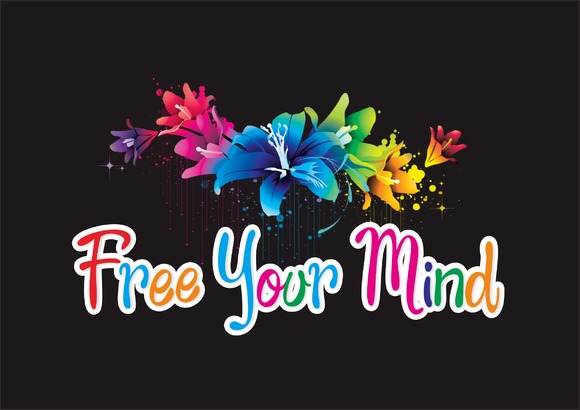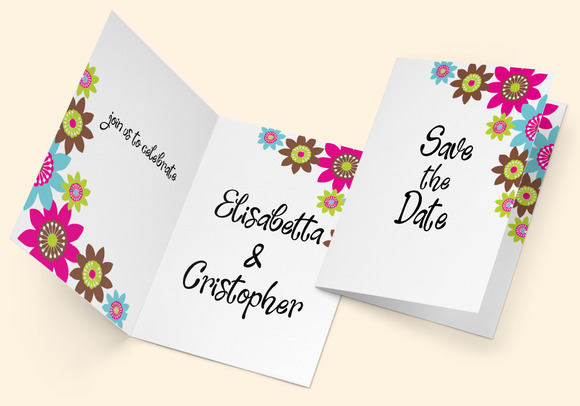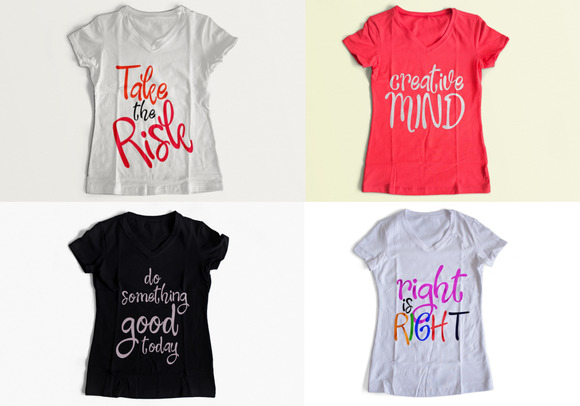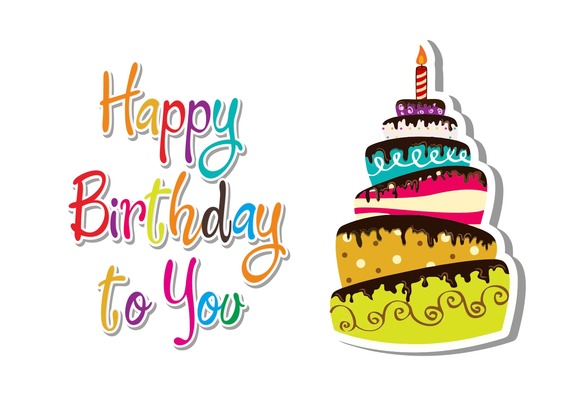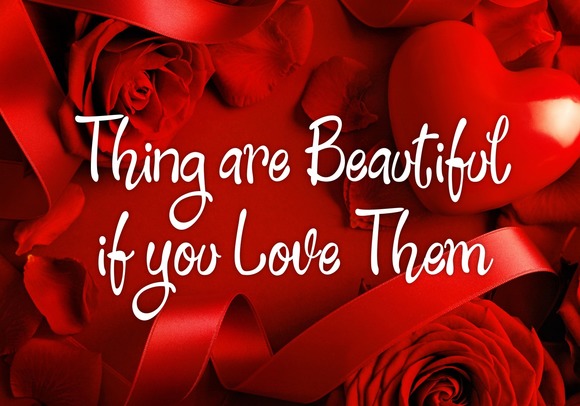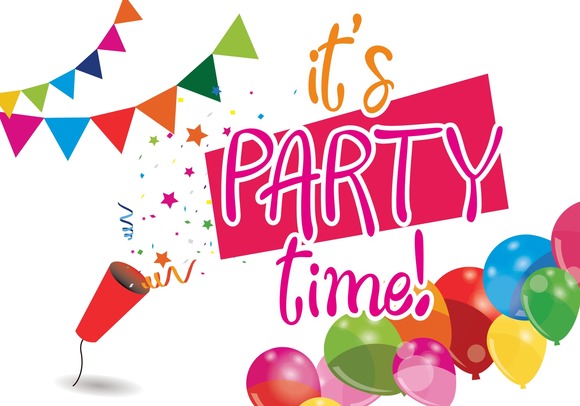
Introduction to Free Your Mind Font
Free your mind is a beautiful typeface and can be used for various purposes such as: headings, logos, posters, invitations, book covers, badges and much more.
Free your mind is a beautiful typeface and can be used for various purposes such as: headings, logos, posters, invitations, book covers, badges and much more!
Free Your Mind Font offers exceptional quality and versatility, making it a valuable addition to your design toolkit. Whether you’re creating for personal projects or commercial use, Free Your Mind Font delivers professional results.